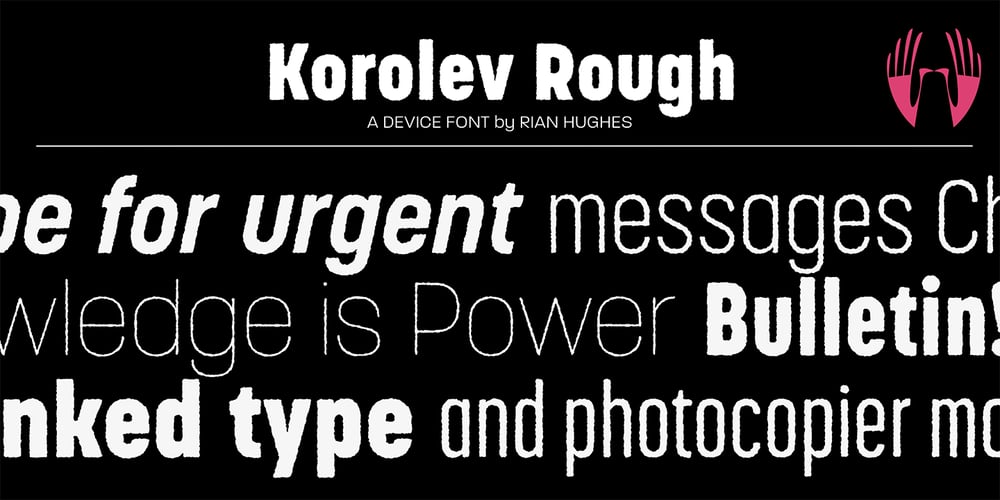
Korolev Rough Font Family was designed by Rian Hughes and published by Device. Korolev Rough contains 20 styles and family package options. Korolev Rough is an inky, distressed version of Korolev, designed to mimic vintage letterpress, photocopies or hot metal on rough paper. A 20-weight sans serif family based on lettering by an anonymous Soviet graphic designer from the propaganda displays at the Communist Red Square parade in 1937, it has been named in honor of Sergey Pavlovich Korolyov, or Korolev, considered by many to be the father of practical astronomics. Every weight and style comes with an alternate double-story “a”. The complete Korolev family includes standard, italic, condensed, and compressed versions, each in five weights.